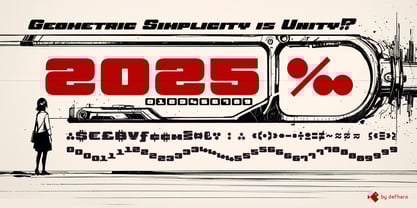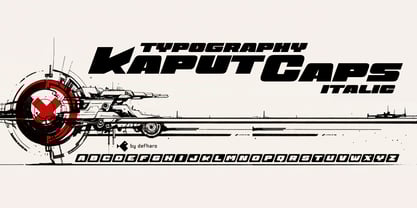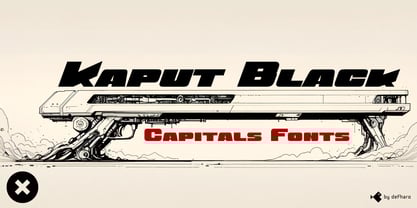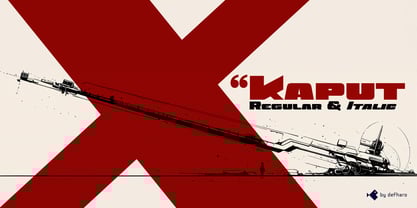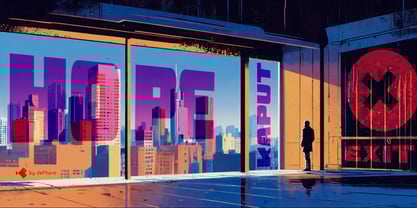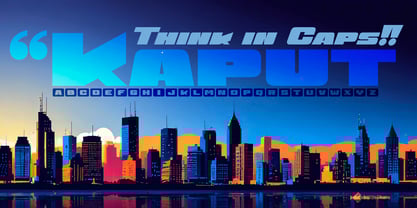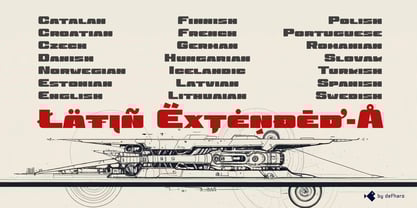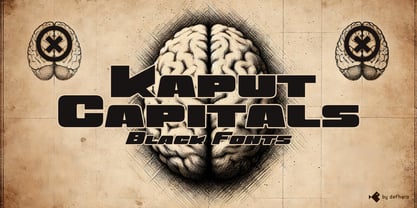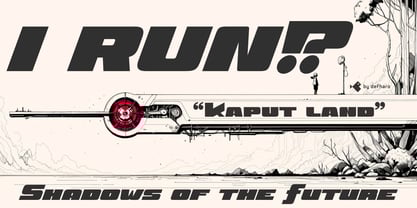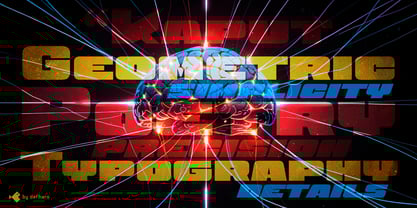
Kaput Caps
by deFharo
The Kaput Caps Font Family was designed by Fernando Haro and published by deFharo. Kaput Caps contains 2 styles and family package options. More about this family
Kaput Caps, a bold and uniquely uppercase type family, is designed with the perfect balance of strength and sophistication. Robust, semi-expanded, and remarkably legible, its thick lines and sharply contrasting stems decisively capture attention while providing meticulous harmony, thanks to painstaking work on metrics and kerning.
• Style: A sans serif design with a rounded exterior finish, combining curves with sharp angles in its internal shapes.
• Versions: Available in Black and Black Italic. The 20-degree slant of the italic version adds a touch of dynamism and modernity.
• Letter Variations: Capitals, Small Caps, and Petite Caps—ideal for tailoring each design to a unique expression.
Advanced OpenType Features: Multiple sets of alternate letters and numerals, dynamic fractions, mathematical symbols, arrows, and more—unlocking endless creative possibilities.
• Language Support: Designed to cover languages with Latin Extended-A support, it is a flexible typeface that adapts to a wide variety of contexts.